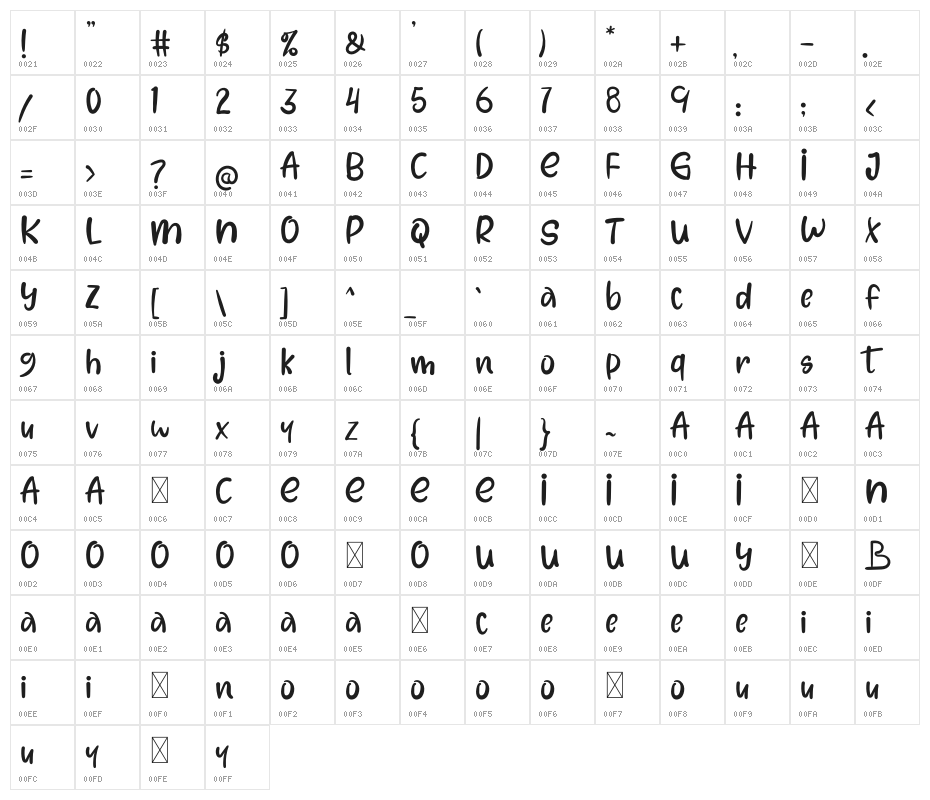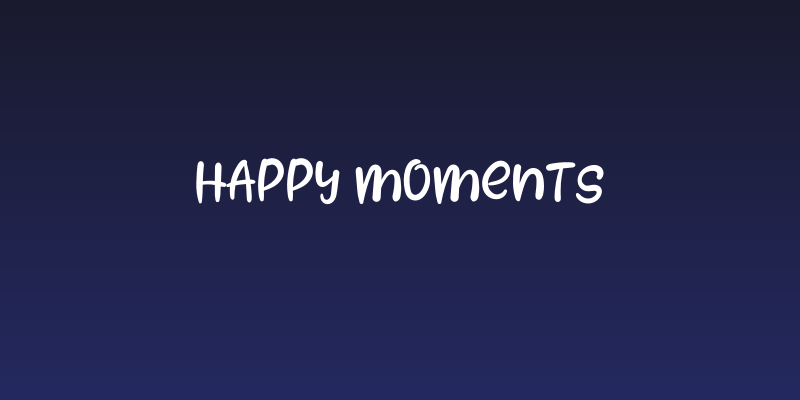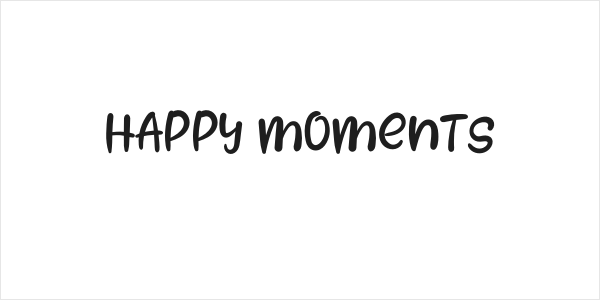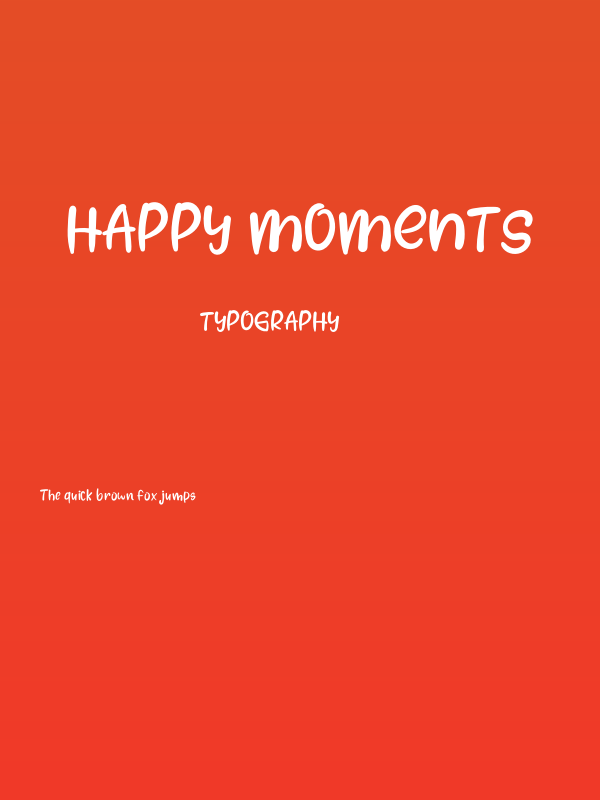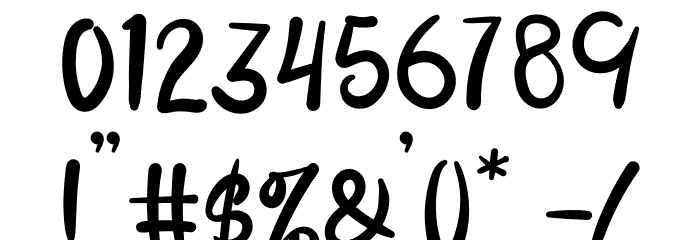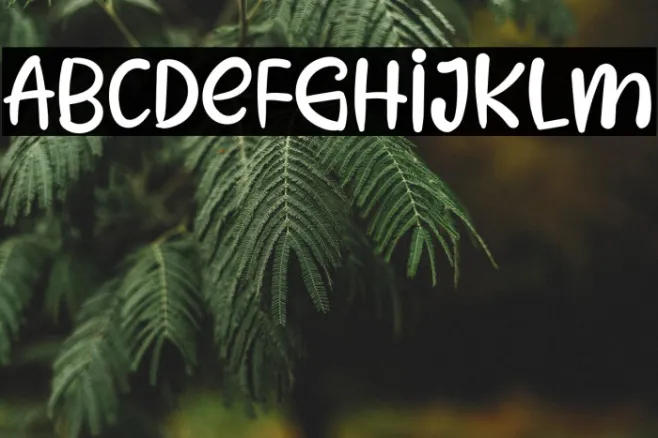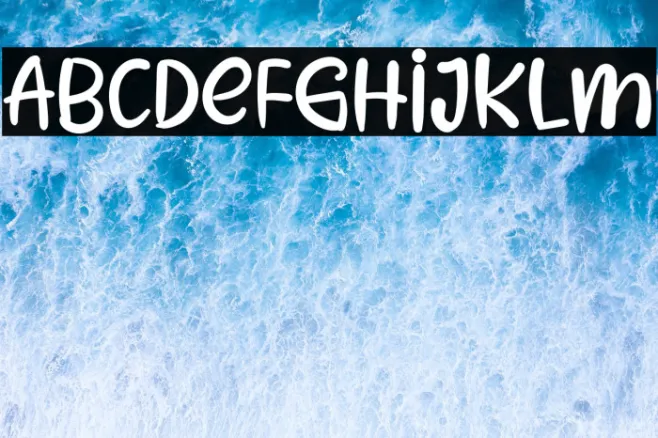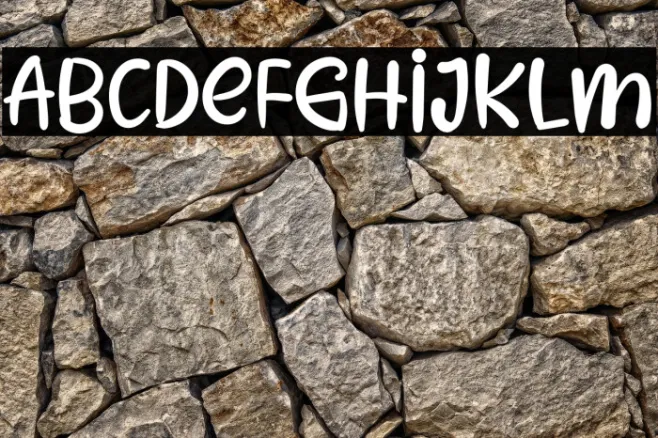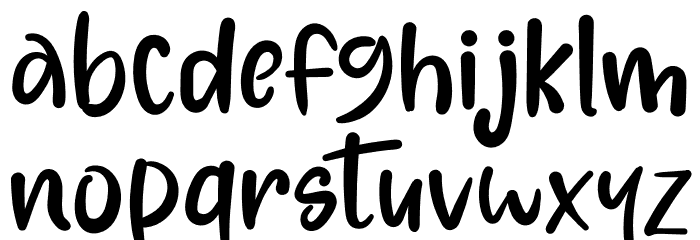
HAPPY MOMENTS Font
HAPPY MOMENTS Description
This playful and energetic font features a handwritten style with bold, rounded strokes that convey a sense of fun and informality. The characters are slightly irregular, adding a personal touch that mimics natural handwriting. The uppercase and lowercase letters are well-balanced, with a consistent flow that maintains readability. Numbers and special characters are designed with the same lively spirit, making them suitable for various creative applications. The font's overall appearance is friendly and approachable, making it ideal for projects that require a casual and inviting tone.
| Proposed Projects | Ideal for greeting cards, children's books, playful branding, and social media graphics. |